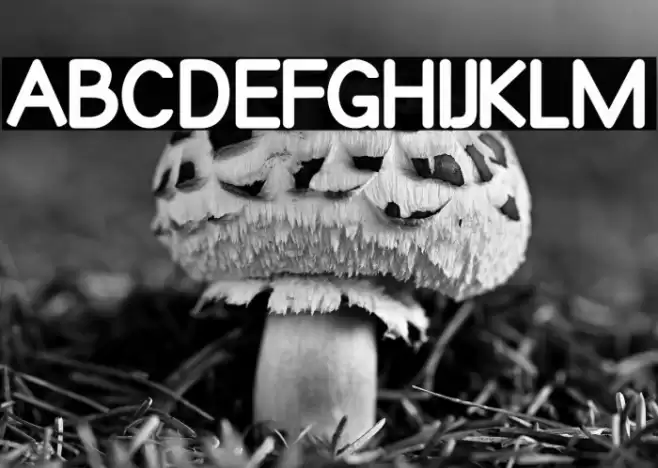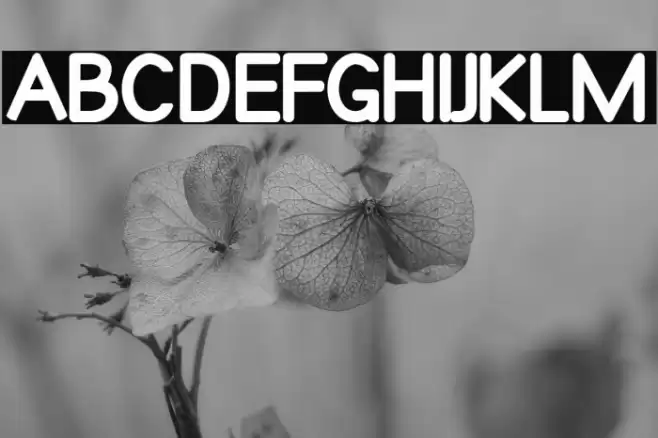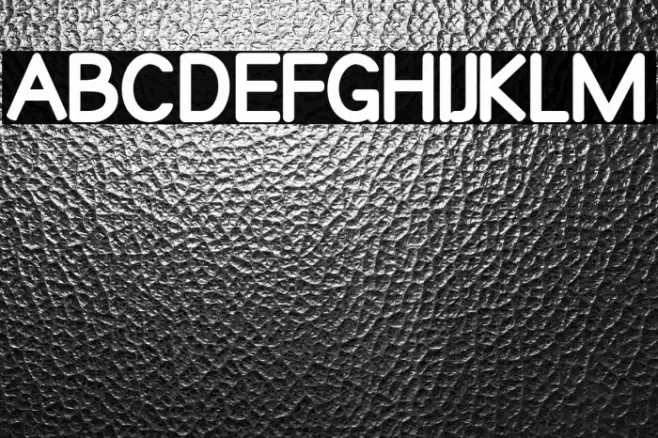
Qualioblack Font
Qualioblack Description
This font features a bold, rounded sans-serif style that exudes a modern and friendly vibe. The characters are uniformly thick, with smooth curves and a consistent stroke width that gives it a cohesive appearance. The rounded edges soften the overall look, making it approachable and versatile for various design applications. The numerals and special characters maintain the same rounded aesthetic, ensuring visual harmony across all elements. Its clean and straightforward design makes it suitable for both digital and print media, where readability and a contemporary feel are desired.
A bold, rounded sans-serif font with a modern and friendly appearance from Uncategorized fonts.
- Proposed Projects: Ideal for branding, advertising, packaging, children's books, and digital interfaces.
- Use Case: Headlines, Logos, Branding